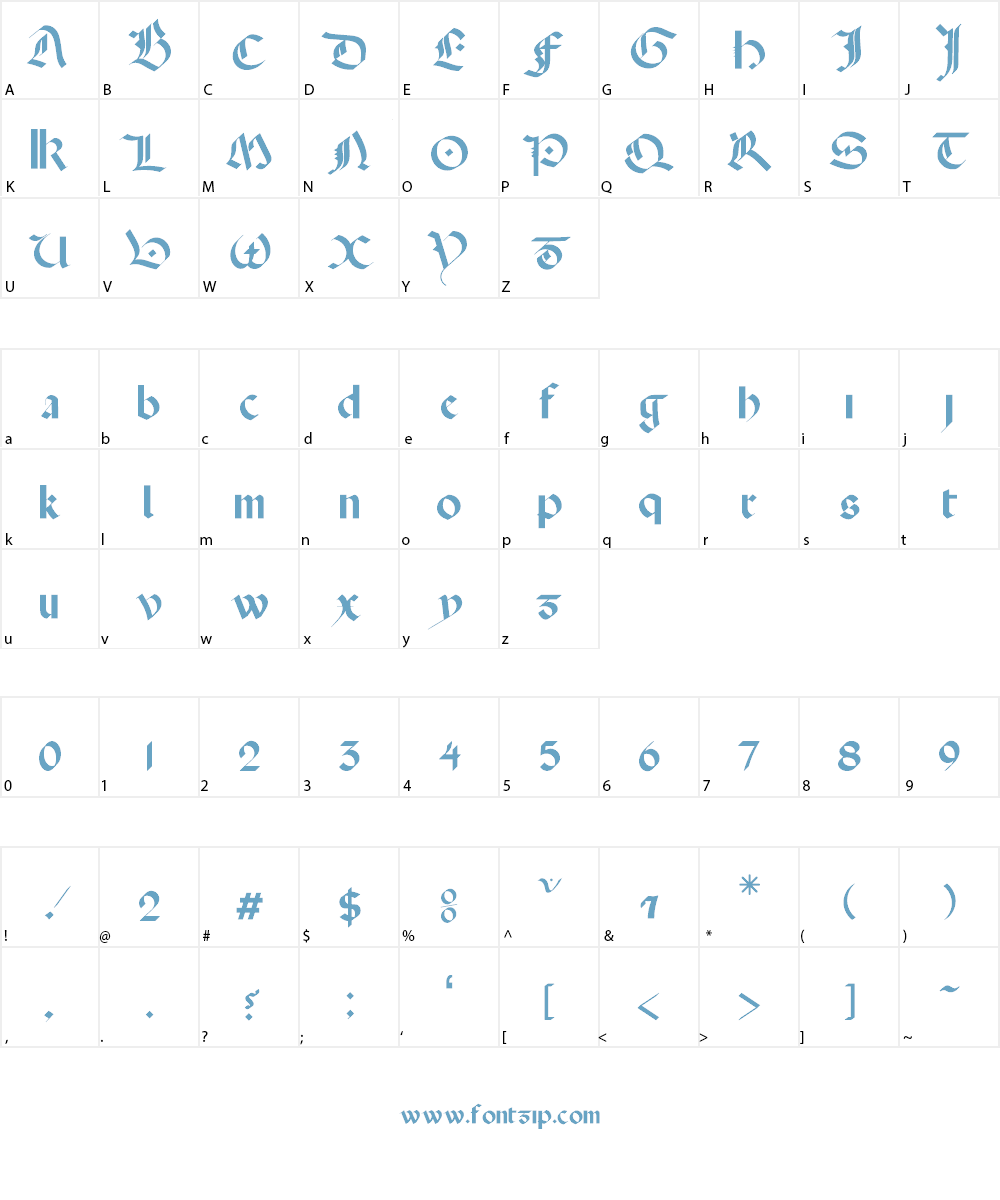
Quaerite Regnum Dei, Latin for «Seek ye the Kingdom of God», is an open source font. Quaerite Regnum Dei is based on a beautiful Spanish rotunda hand found in the Misal rico de Cisneros. In the early 16th century, Francisco Jiménez de Cisneros, who was a cardinal in Spain, commissioned local monks/scribes to create a Latin missal to be used in his Toledo cathedral.
Quaerite Regnum Dei includes multiple versions of each letter and also includes OpenType features which make it so that when two letters appear together, such as "aa", the second "a" will look different than the first "a".